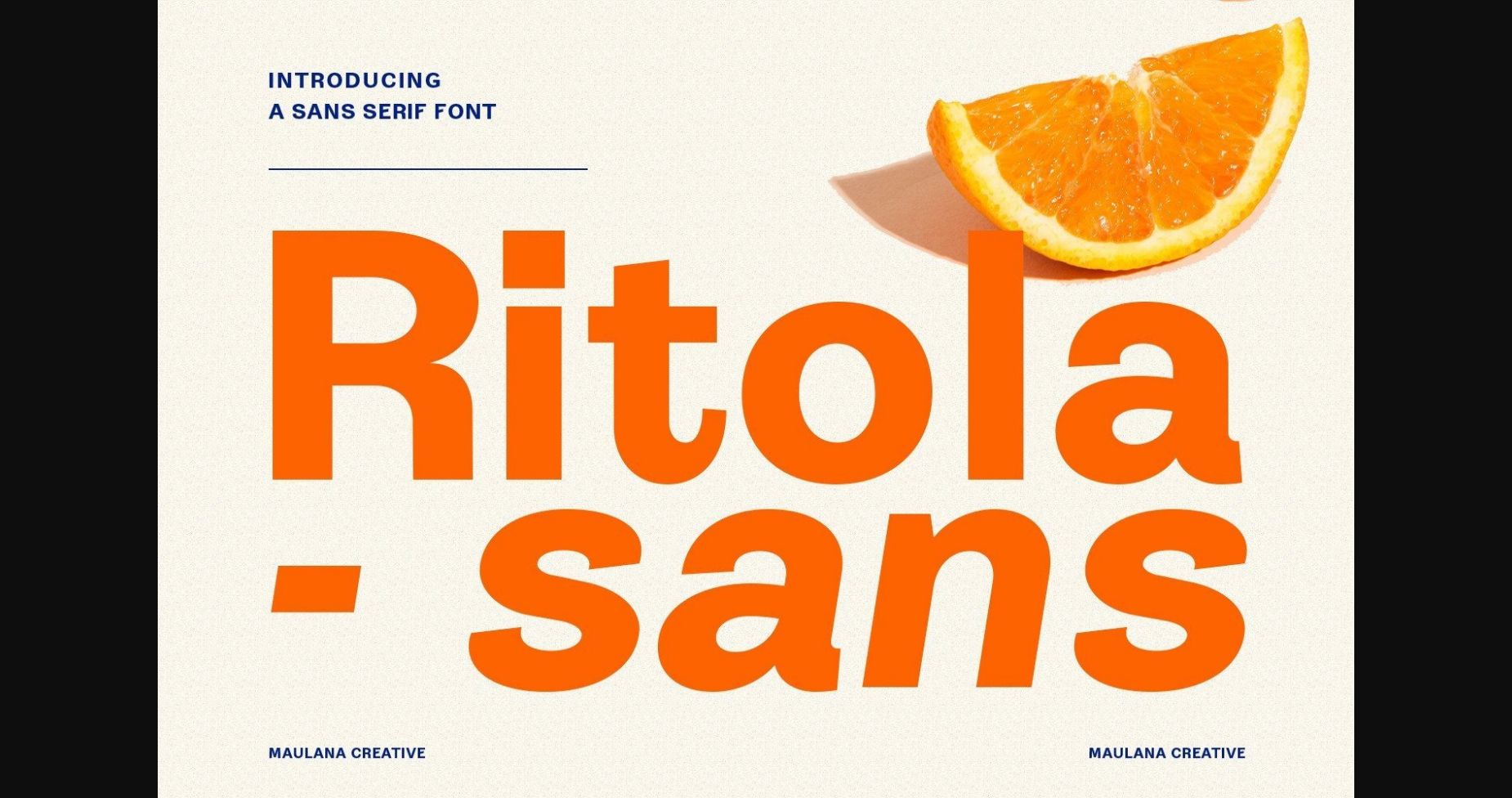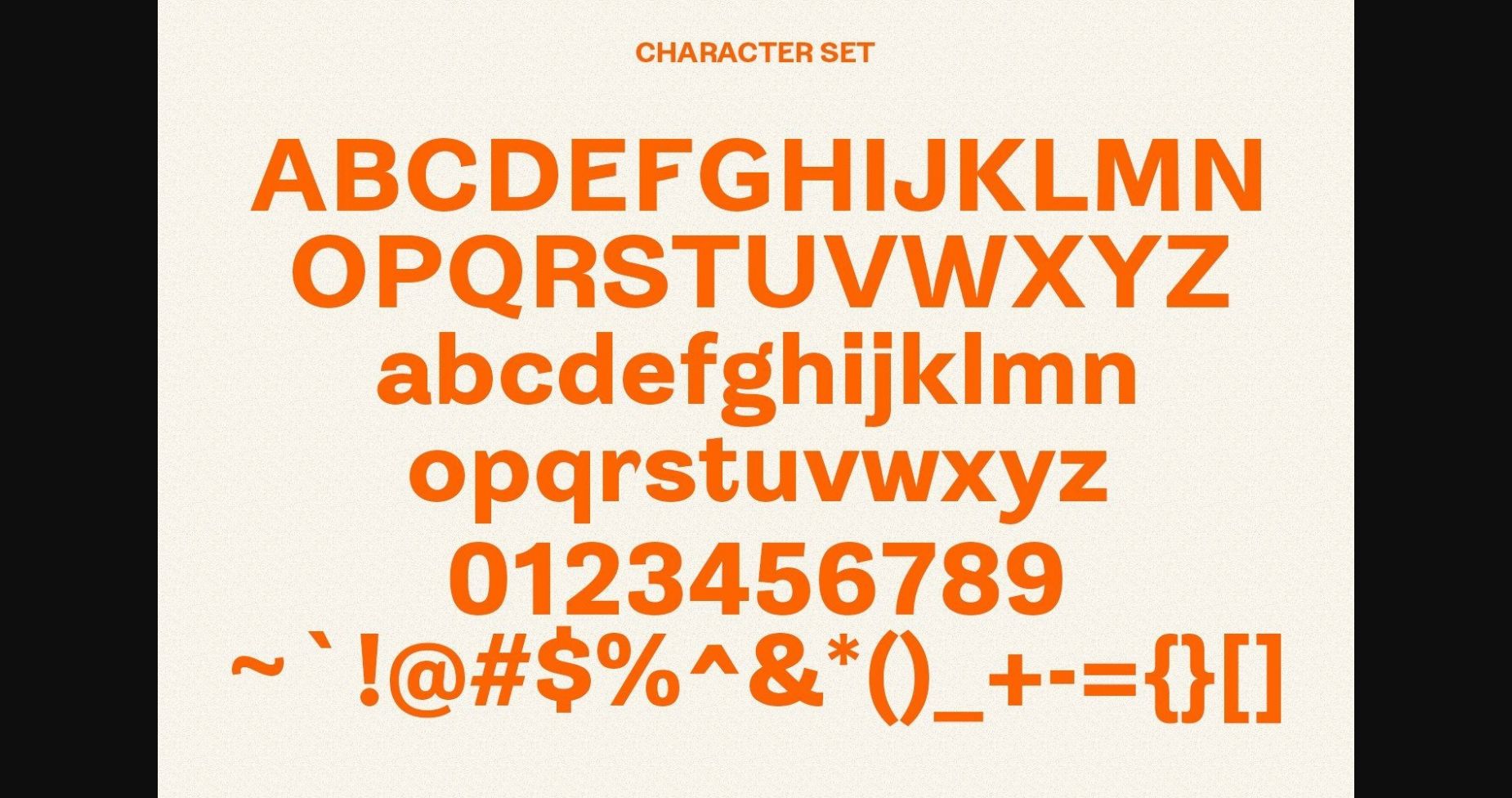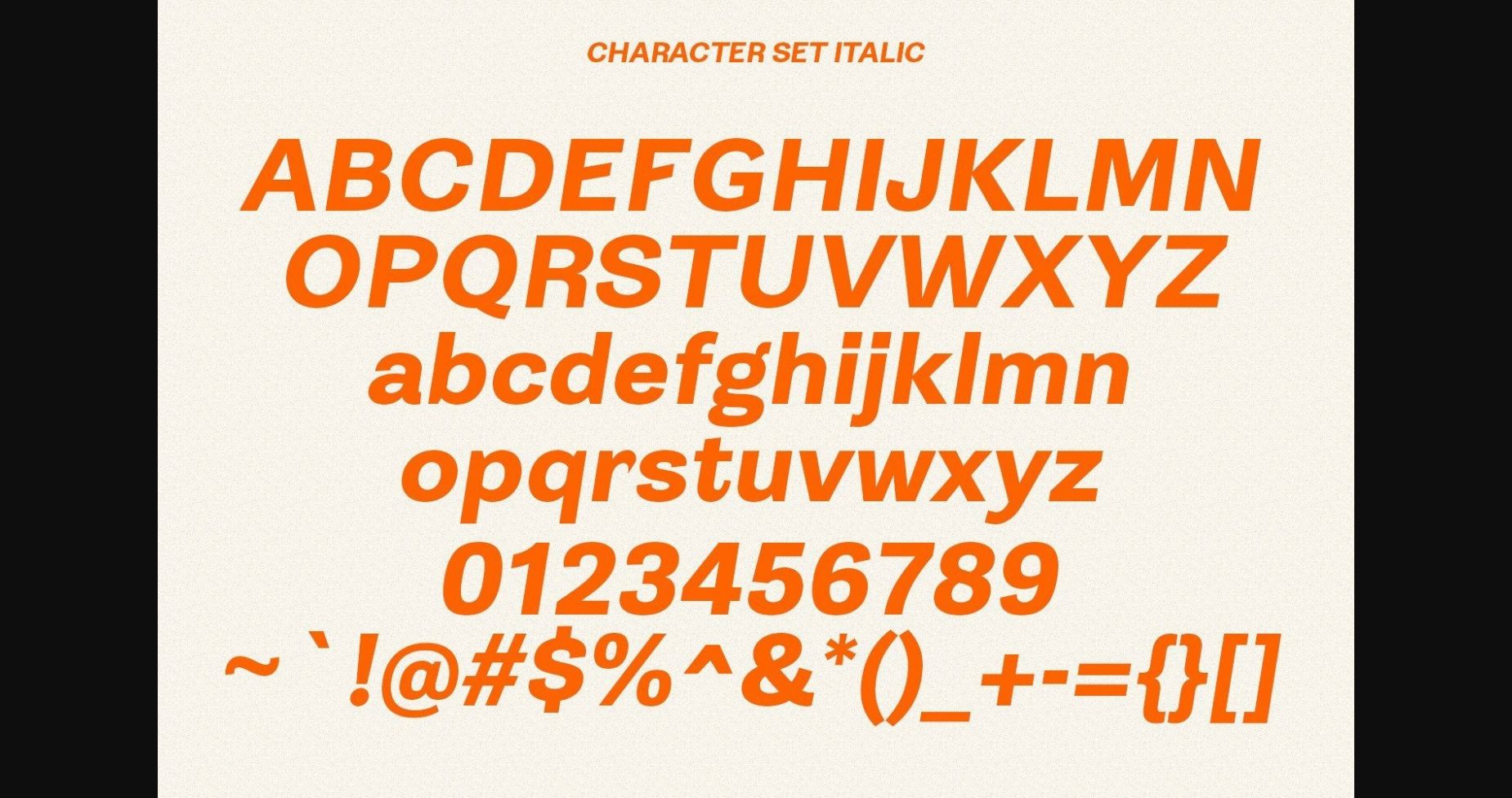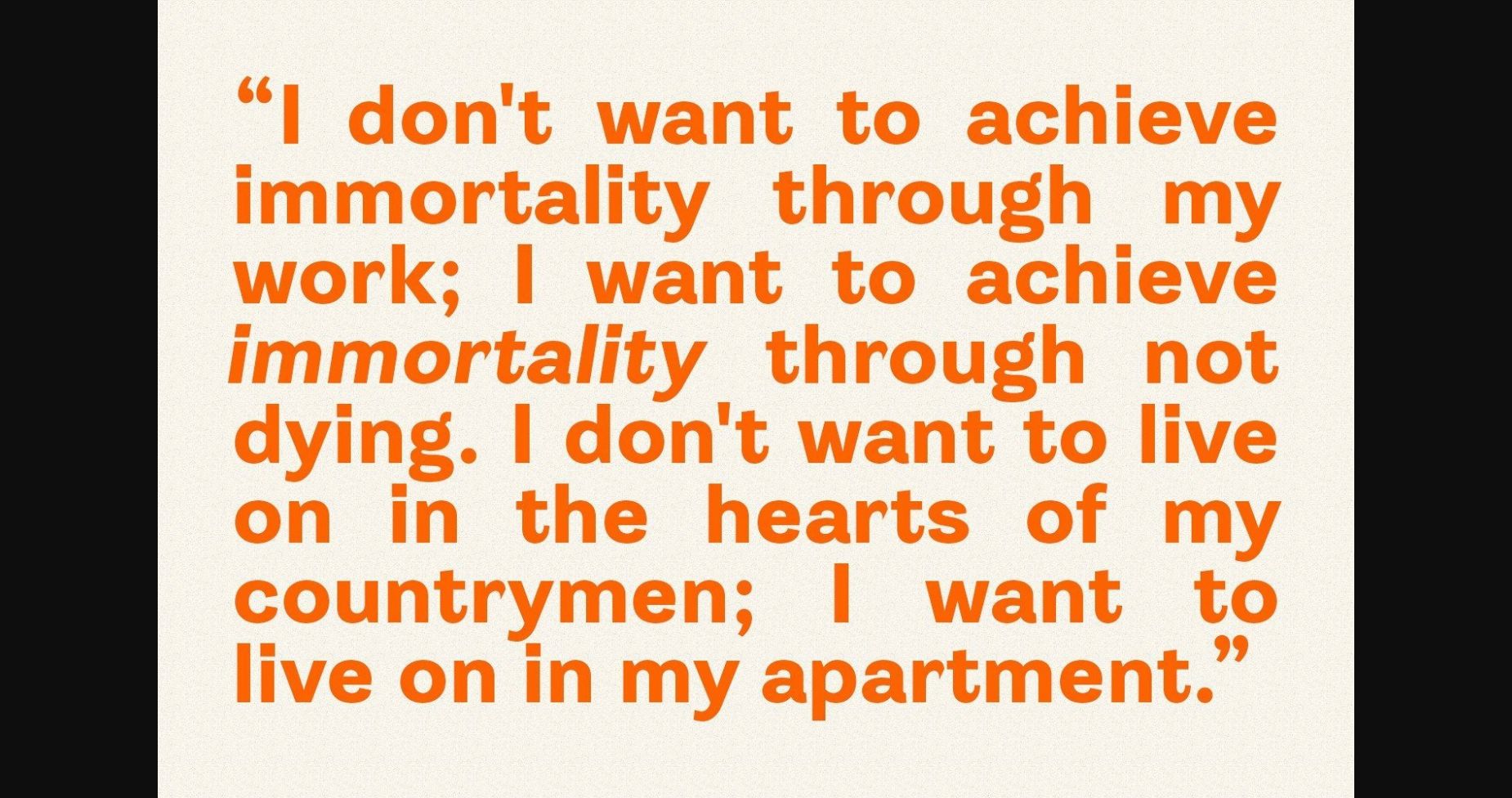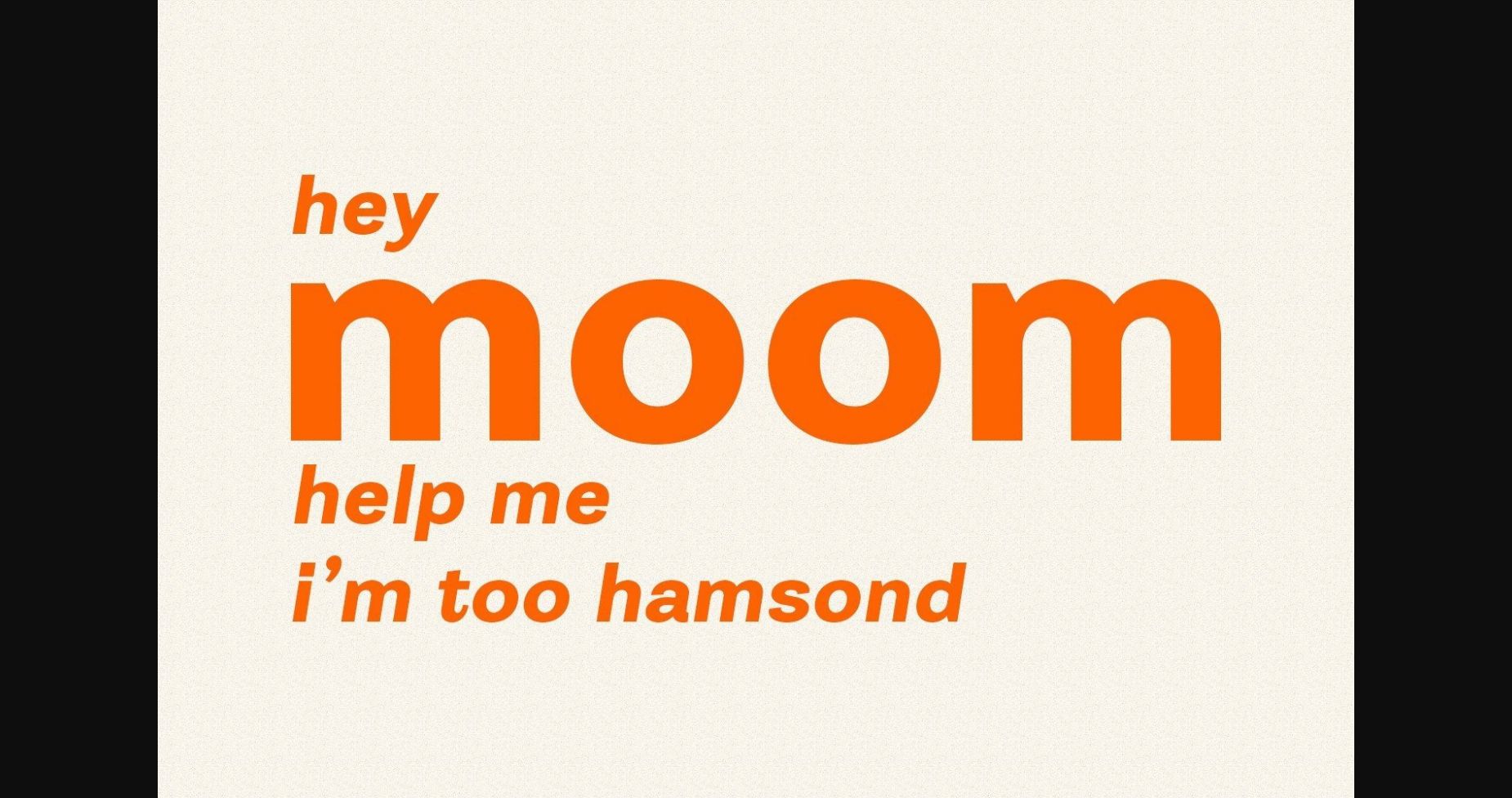
About Ritola Sans Font
Ritola Sans is a natural and fresh display sans serif font. It is the best choice for creating eye-catching logos, branding, and quotes. No matter the topic, this font will be an incredible asset to your fonts’ library, as it has the potential to elevate any creation.